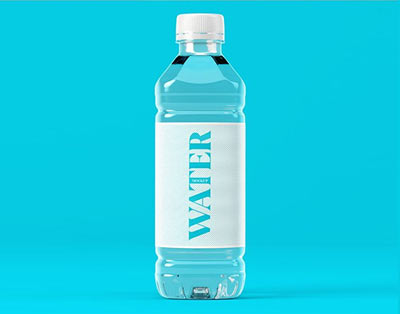
Blue Spirits FontПоддержать проект
Blue Spirits Font OTF, EPS Blue Spirits is a Vintage typeface font. This collection of font is perfect for everything your project with vintage style. 📁 Скачать файл